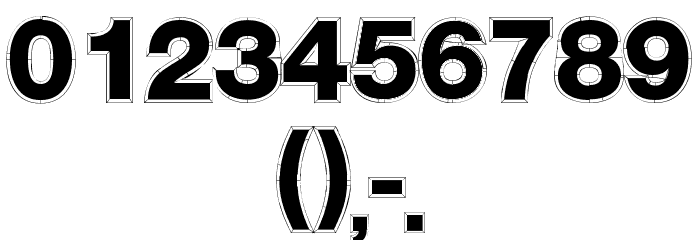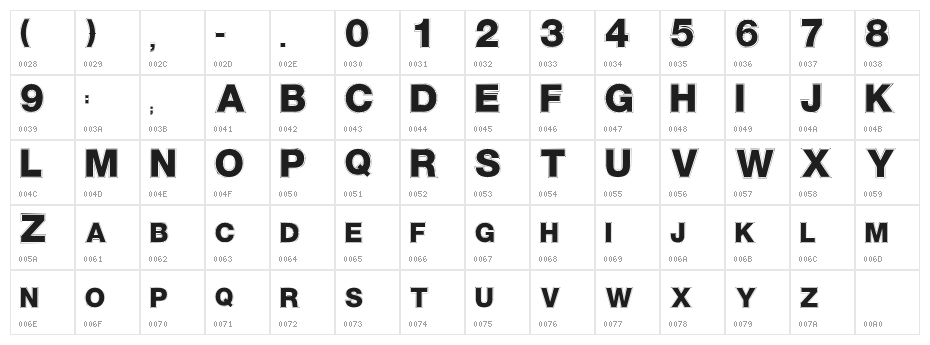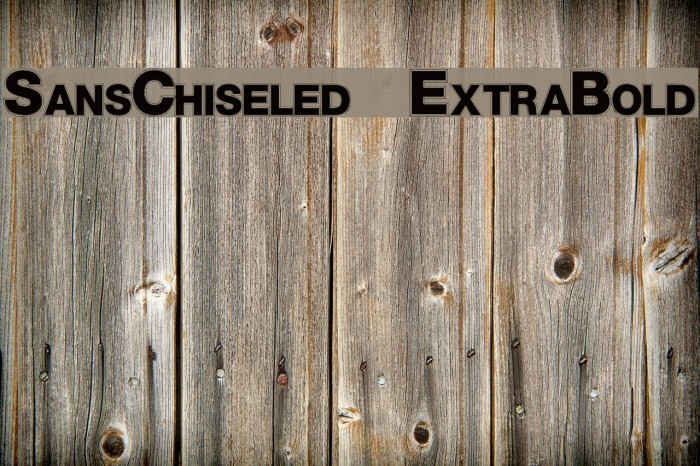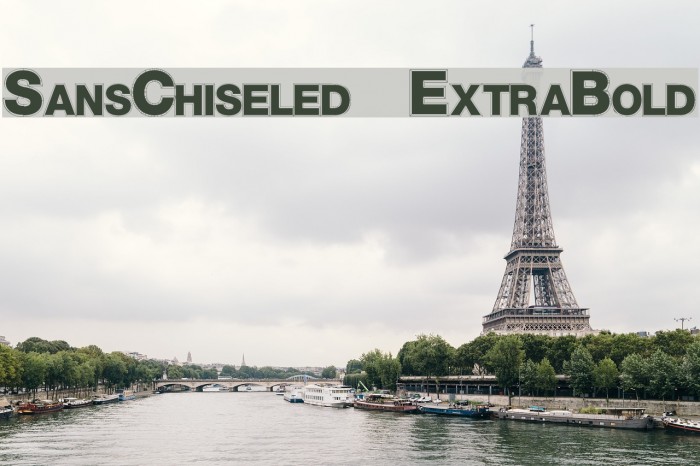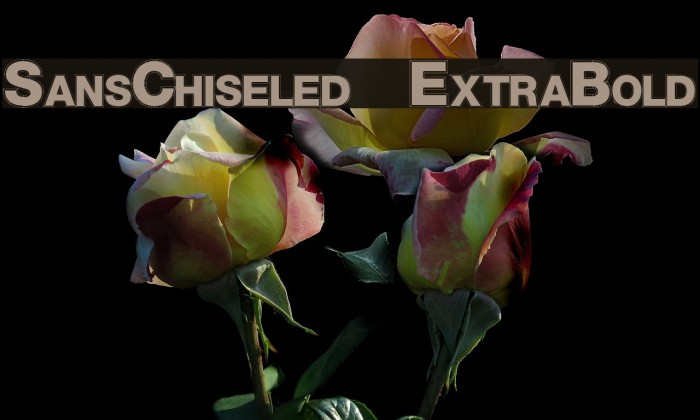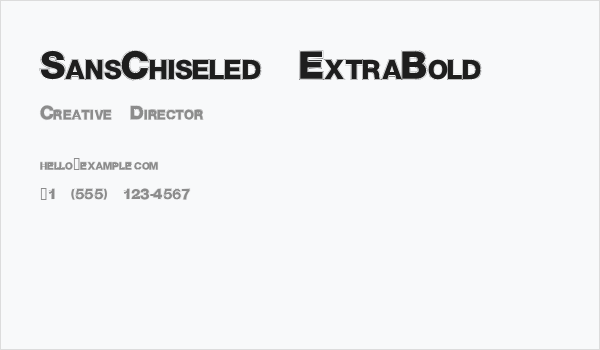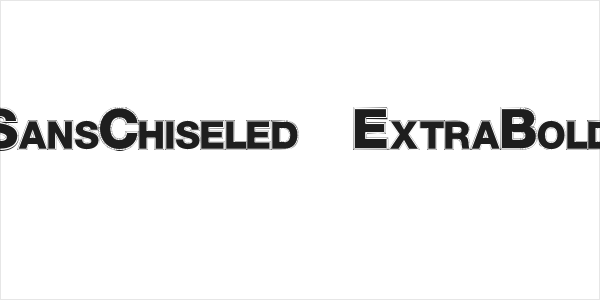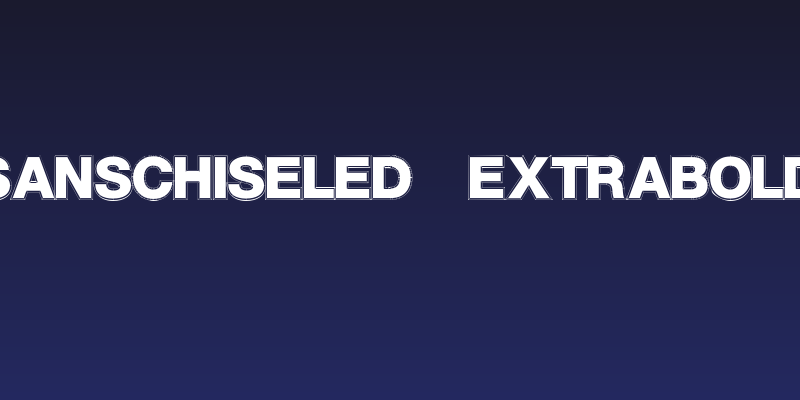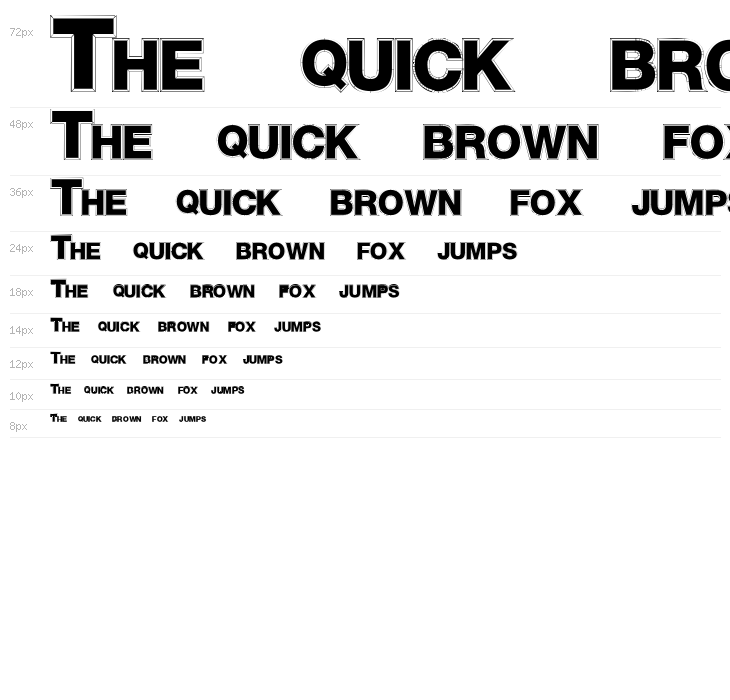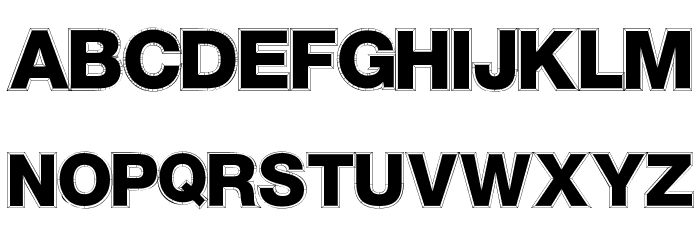
SansChiseled ExtraBold Font
SansChiseled ExtraBold Description
This font features a bold and striking design with a chiseled effect that gives it a three-dimensional appearance. The uppercase letters are prominent and commanding, making it ideal for attention-grabbing headlines. The characters are uniformly wide, with consistent stroke thickness that enhances readability. The numbers and special characters maintain the same bold style, ensuring a cohesive look across all text elements. This font's strong presence makes it suitable for impactful designs where visibility is key.